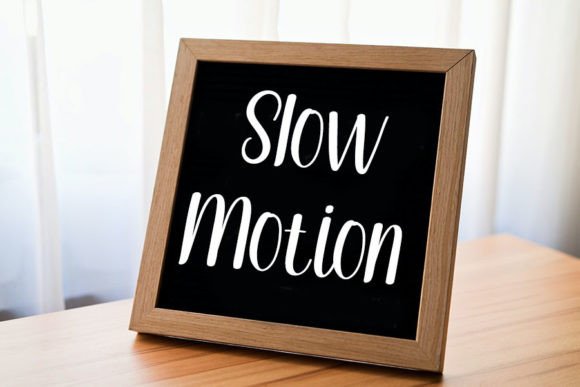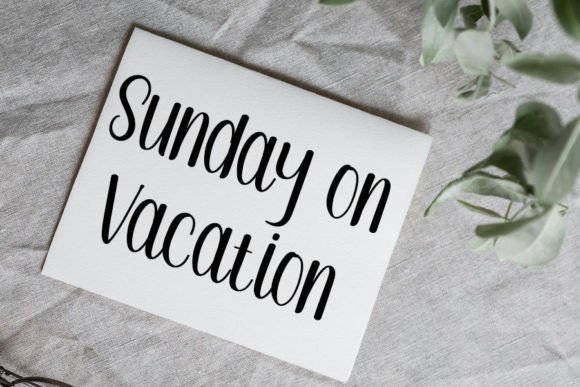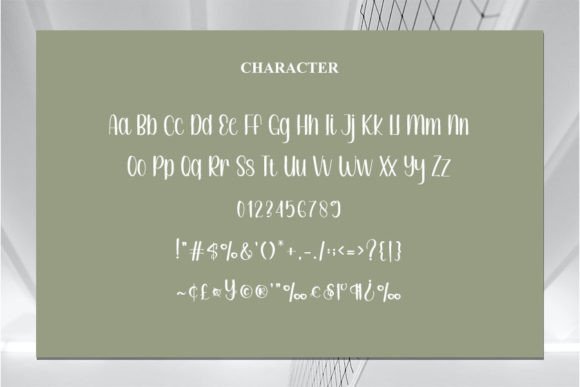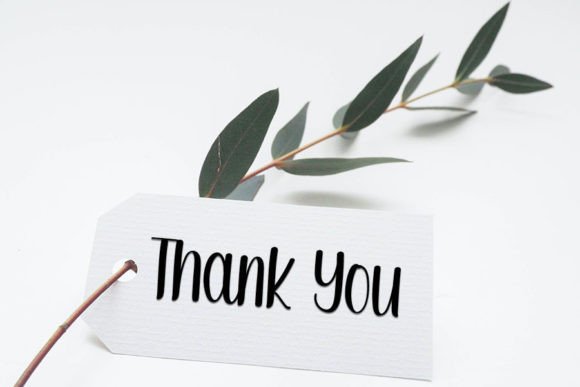
Introducing Christmas Handmade Font: Elevate Your Designs with Timeless Elegance
Are you looking for a font that embodies the spirit of the holiday season? Do you want to add a touch of sophistication and whimsy to your designs? Look no further than the Christmas Handmade Font, a stylish handwritten font that brings a contemporary atmosphere and impeccable form to your projects. Inspired by timeless classic calligraphy, this font is perfect for designers and crafters seeking to create stunning holiday-themed designs.
The Inspiration Behind Christmas Handmade Font
Christmas Handmade Font draws inspiration from traditional calligraphy, with a modern twist. The font’s creator aimed to capture the essence of classic calligraphy, while infusing it with a fresh and contemporary feel. The result is a beautifully balanced and varied font that exudes elegance and sophistication.
Key Features of Christmas Handmade Font
- Handwritten with love: Christmas Handmade Font is a true handwritten font, crafted with precision and care to ensure a natural, organic feel.
- Contemporary atmosphere: The font’s modern design ensures it stays relevant and fresh, making it perfect for a wide range of design applications.
- Impeccable form: The font’s precise and elegant letterforms guarantee a polished finish, suitable for high-end designs.
- Balanced and varied: The font features a range of characters, ensuring a natural flow and rhythm that’s perfect for body text or headings.
Use Cases for Christmas Handmade Font
Christmas Handmade Font is an incredibly versatile font, suitable for a wide range of design projects, including:
- Holiday cards and invitations: Add a touch of festive elegance to your holiday cards and invitations.
- Branding and packaging: Use the font to create eye-catching packaging and branding materials that stand out from the crowd.
- Social media graphics: Elevate your social media graphics with a dash of sophistication and whimsy.
- Web design: Use the font to create stunning website headers, titles, and other design elements.
Why Choose Christmas Handmade Font?
With so many fonts available, why choose Christmas Handmade Font? Here are just a few reasons:
- Unique and distinctive: The font’s handmade nature ensures it stands out from more generic fonts.
- Elegant and sophisticated: The font’s classic inspiration and modern design make it perfect for high-end designs.
- Easy to read: The font’s clear and precise letterforms ensure excellent readability.
Tips for Using Christmas Handmade Font
To get the most out of Christmas Handmade Font, here are a few tips:
- Experiment with sizes and styles: Play around with different font sizes and styles to find the perfect combination for your design.
- Pair with complementary fonts: Combine Christmas Handmade Font with complementary fonts to create visual interest and hierarchy.
- Use for headlines and titles: Take advantage of the font’s elegant and sophisticated feel by using it for headlines and titles.
Christmas Handmade Font is a truly special font that brings a touch of timeless elegance to your designs. With its stylish handwritten feel, contemporary atmosphere, and impeccable form, it’s the perfect choice for designers and crafters seeking to create stunning holiday-themed designs. Whether you’re creating holiday cards, branding materials, or social media graphics, Christmas Handmade Font is sure to elevate your designs and leave a lasting impression.